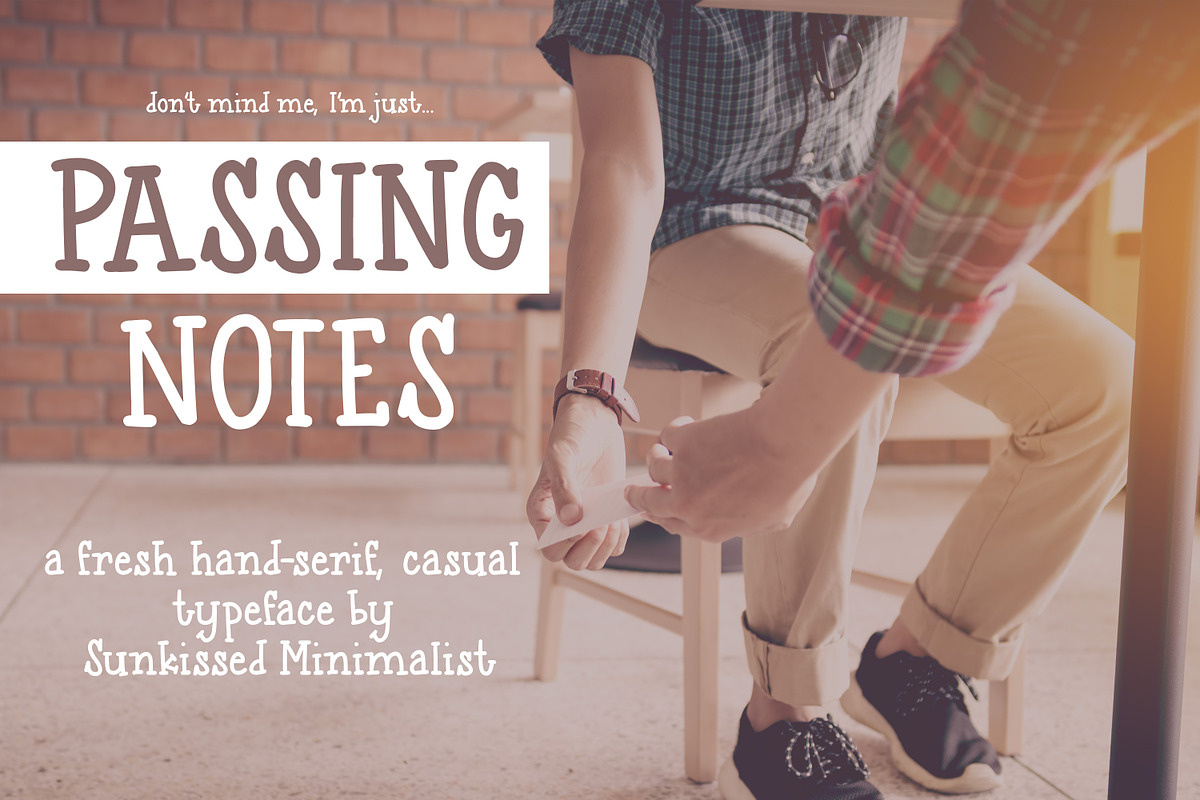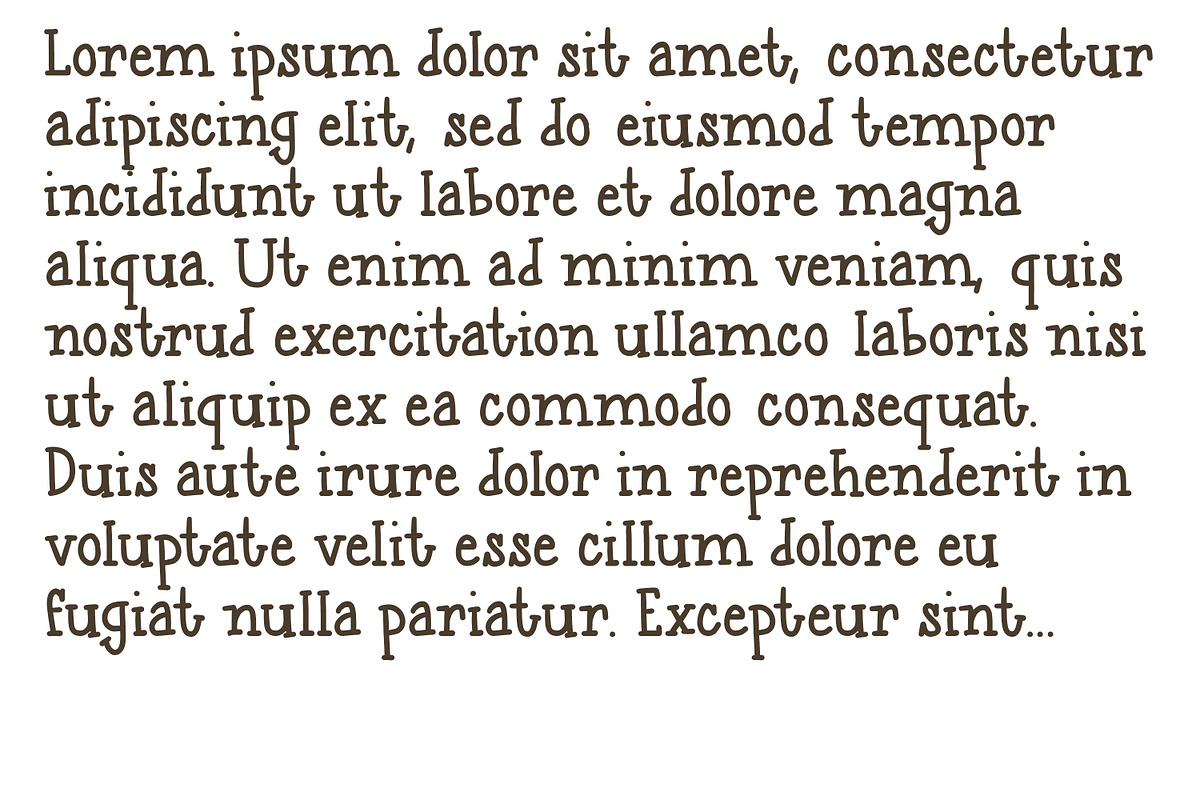
Passing Notes
Passing notes is a fresh hand-serif, casual typeface created by yours truly. It features uppercase, lowercase, and latin characters and accents!